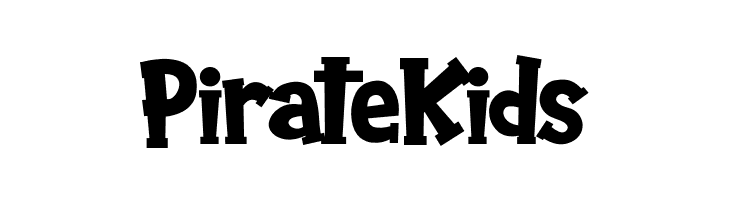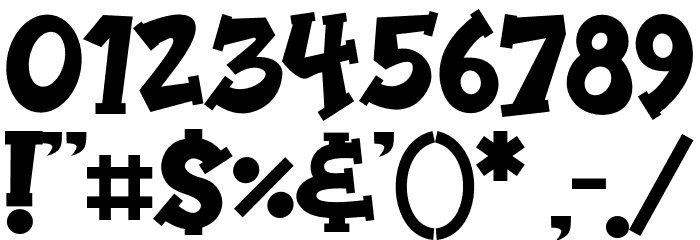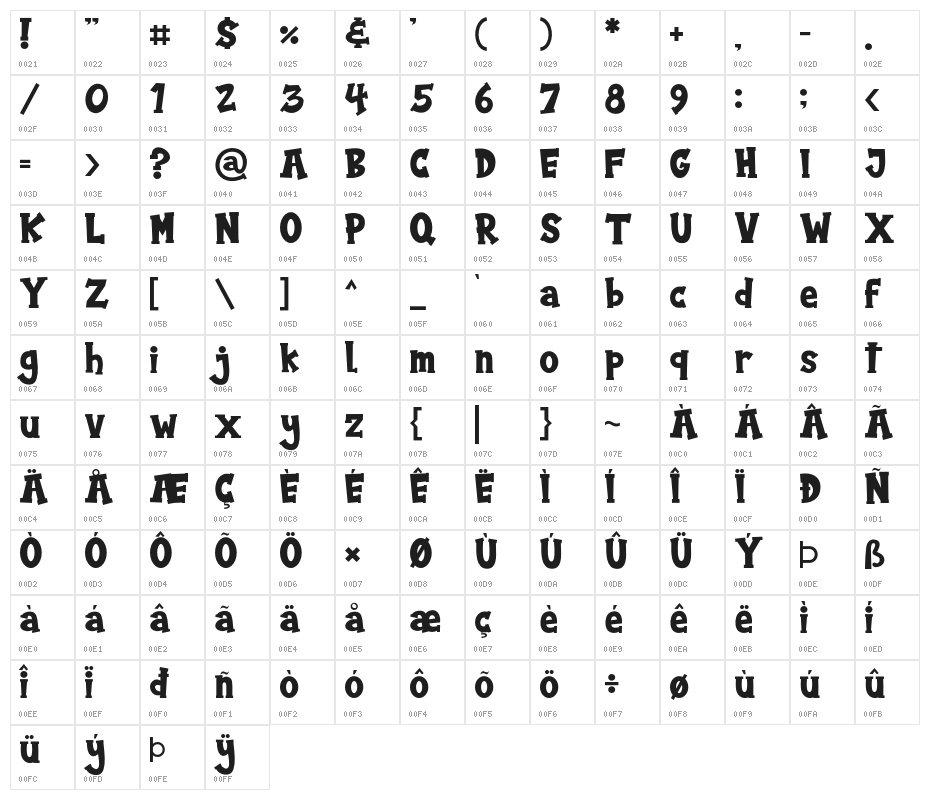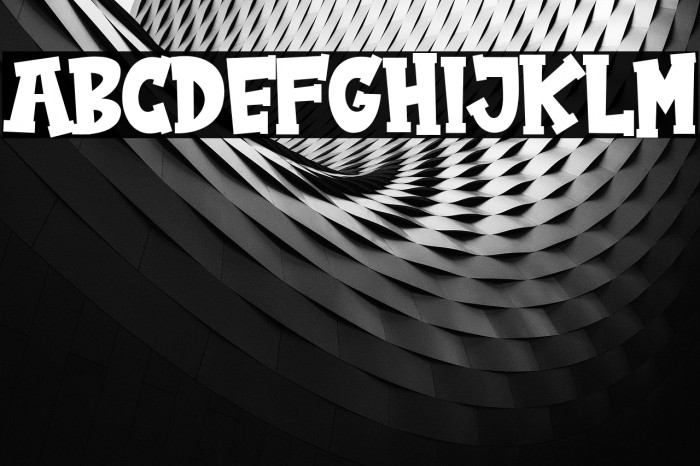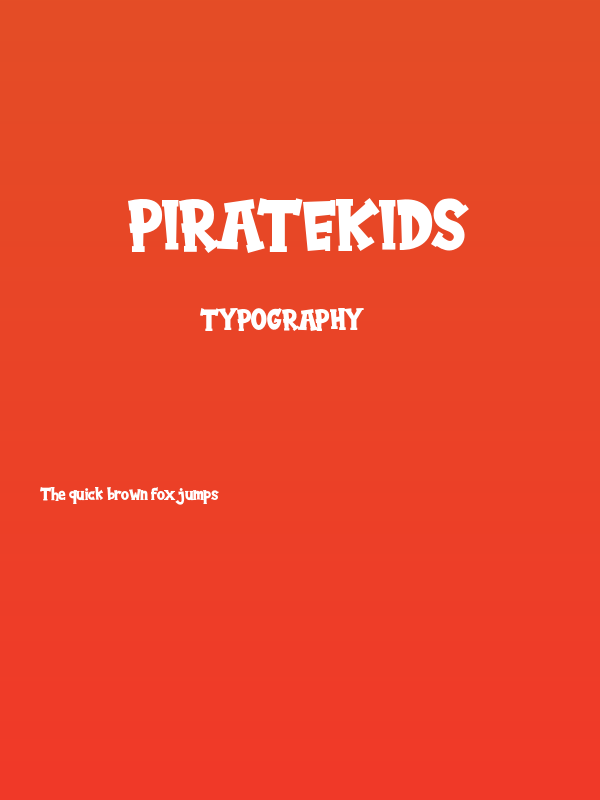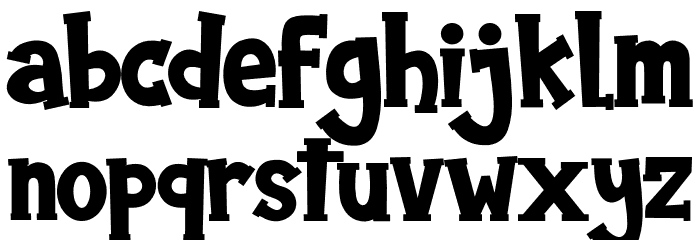
PirateKids Font
PirateKids Description
This playful and bold font features a whimsical, pirate-inspired design with exaggerated serifs and a slightly uneven baseline, giving it a hand-drawn appearance. The uppercase letters are robust and commanding, while the lowercase letters maintain a consistent style with a touch of quirkiness. The numbers and special characters are equally bold and distinctive, adding to the font's overall charm. This font is perfect for projects that require a fun and adventurous feel, such as children's books, themed party invitations, or playful branding. Its unique style captures attention and adds a sense of excitement and creativity.
| Proposed Projects | Ideal for children's books, themed invitations, playful branding, and adventure-themed designs. |